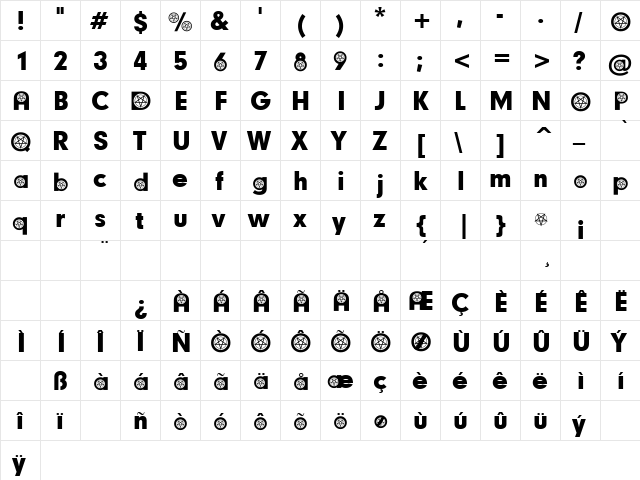
Satanic Participants Regular
Design Context for Satanic Participants Typeface
Satanic Participants is a composed and adaptable typeface that performs quietly and consistently across a wide range of design contexts.